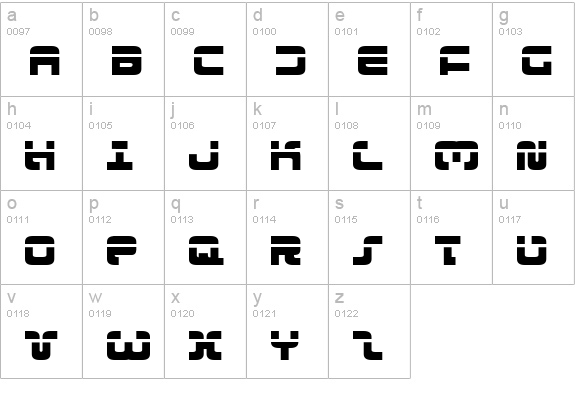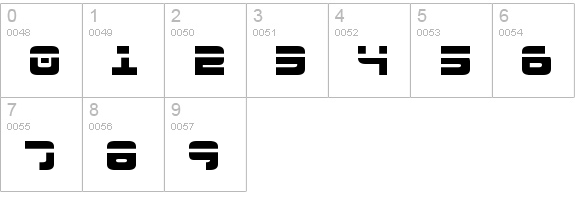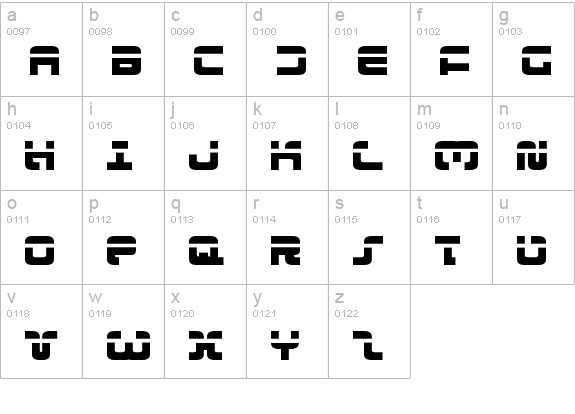
Exedore Laser font is a sleek and futuristic typeface that exudes a sense of innovation and modernity. With its sharp lines and geometric design, this font is perfect for creating eye-catching headlines, logos, and branding materials. The laser-like precision of Exedore Laser font gives any project a dynamic and cutting-edge feel. What's even better is that Exedore Laser font is available for free download at FontsMarket.com. This means that you can easily access and use this striking font for your personal or commercial projects without any cost. Don't miss out on the opportunity to elevate your designs with the stunning Exedore Laser font today!